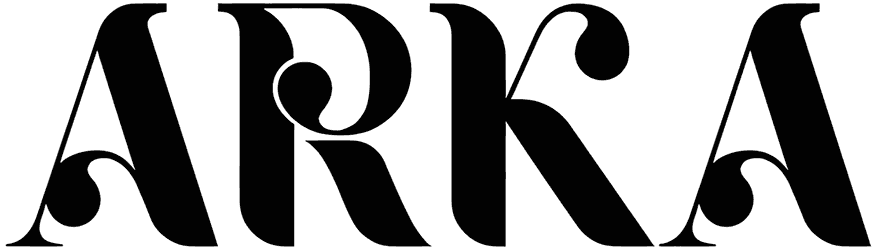
Arka Typeface Font
If you are pursuing a classic yet luxurious design to decorate the words of your future setup that includes both a modern and ancient vibe, you’ve got there. As a serif font with curly and modest letters in complete alphabet sets, the Arka Typeface is suitable for showing your projects in a progressive face.